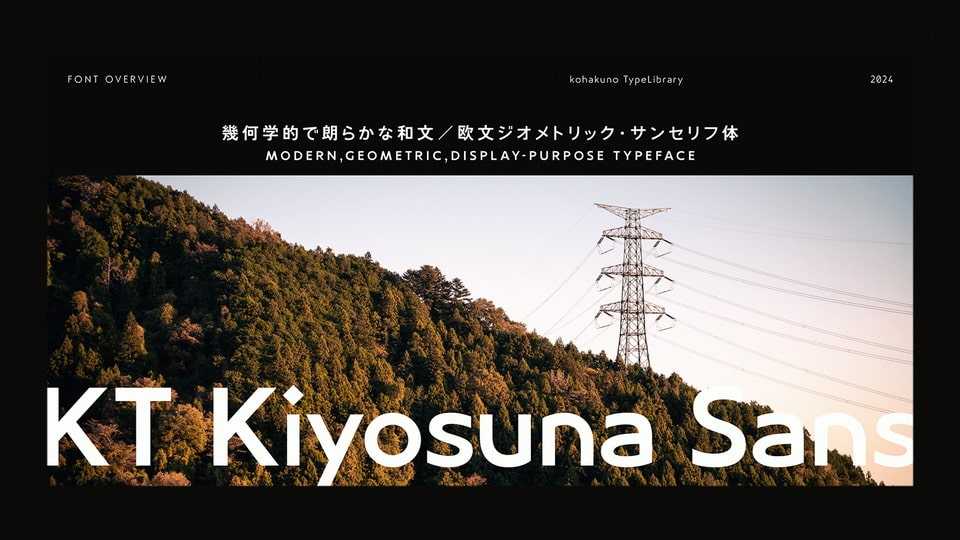
KT Kiyosuna Sans Font Family › Fontesk – Download Grátis
Download KT Kiyosuna Sans font, a sans serif typeface, featuring Expanded Latin, Basic Cyrillic, and Japanese characters with both cheerful and geometric tones of design. Smooth arching strokes and diamond-shaped dots in the alphabet and Japanese Kana are combined with modern Japanese Kanji from Zen Kaku Gothic font, creating a low-contrast and clean typography.
Designer: Reiya WATANABE